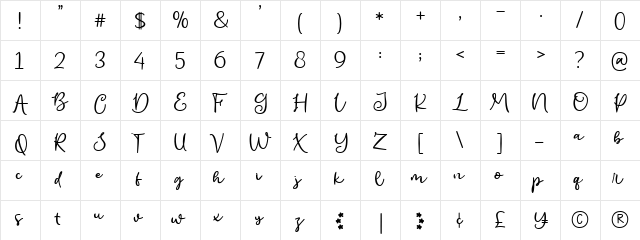
Asian Cuisine Regular
| Foundry | Olivetype Studio |
| Designer | AFS Olivetype |
Design Context for Asian Cuisine Typeface
Asian Cuisine is a composed and adaptable typeface that performs quietly and consistently across a wide range of design contexts.